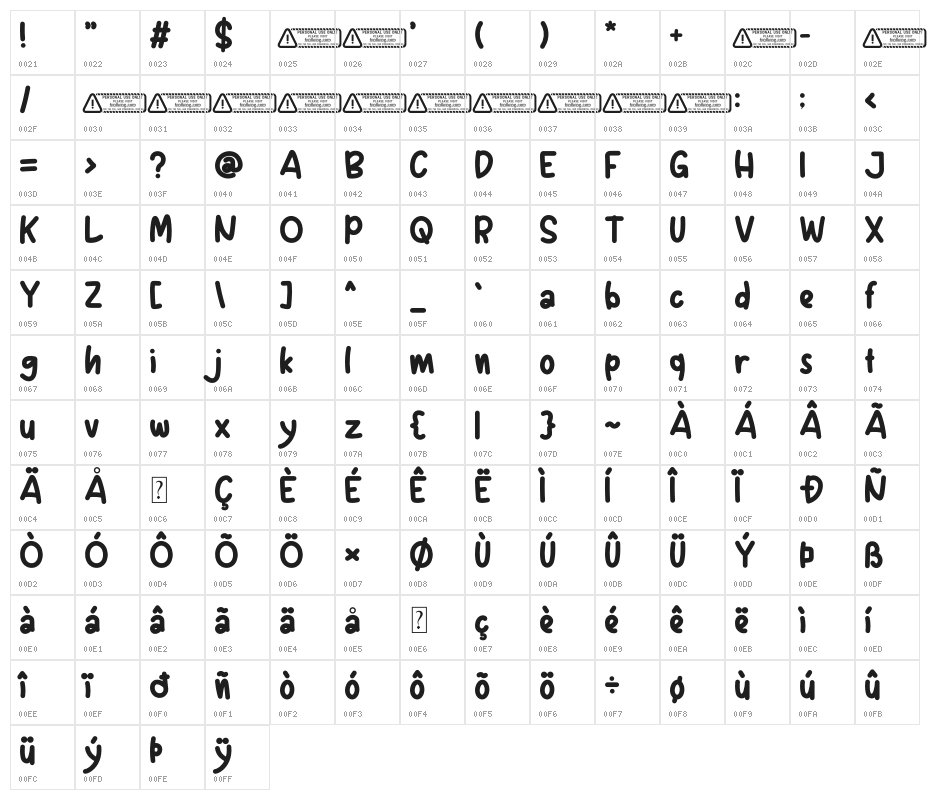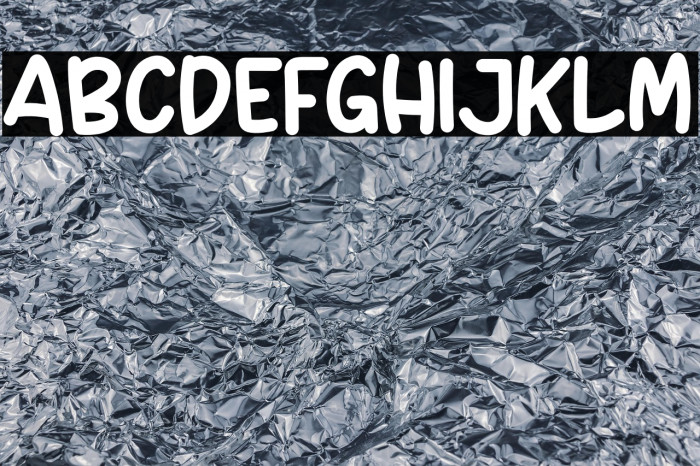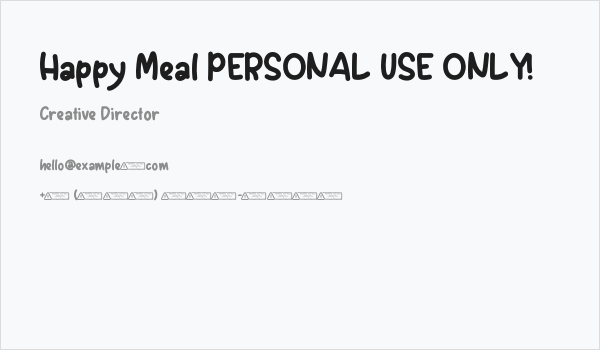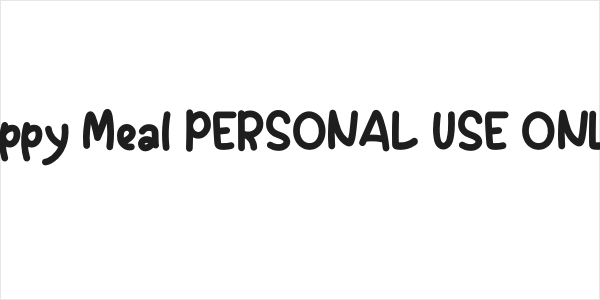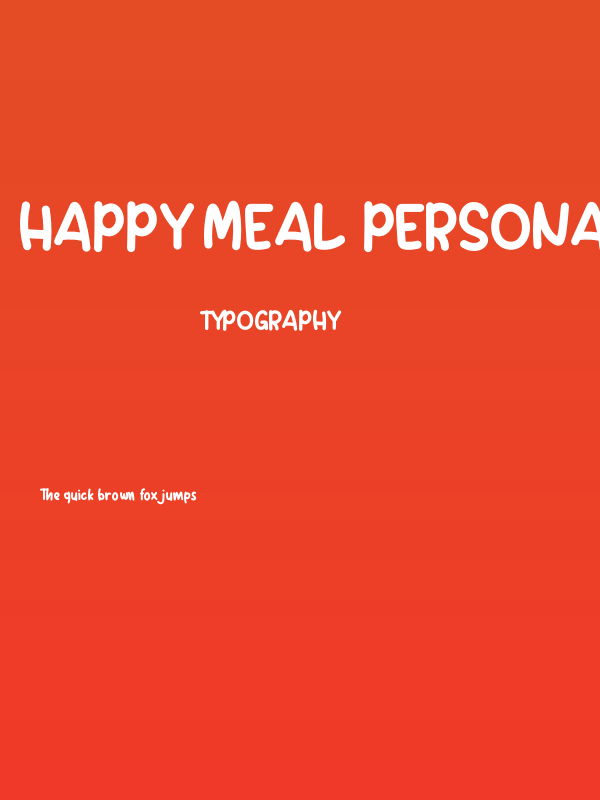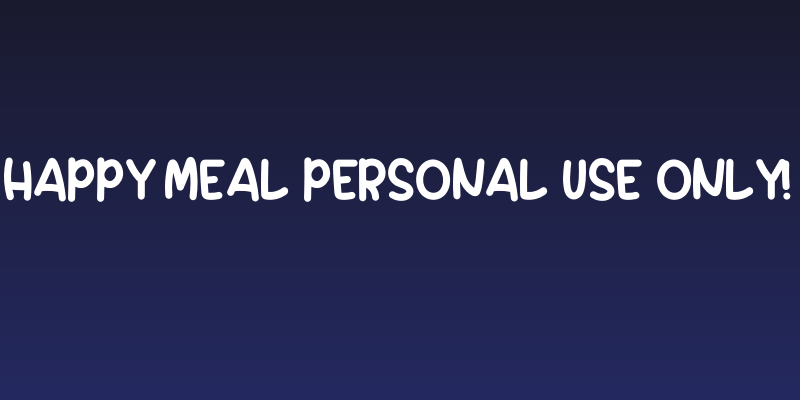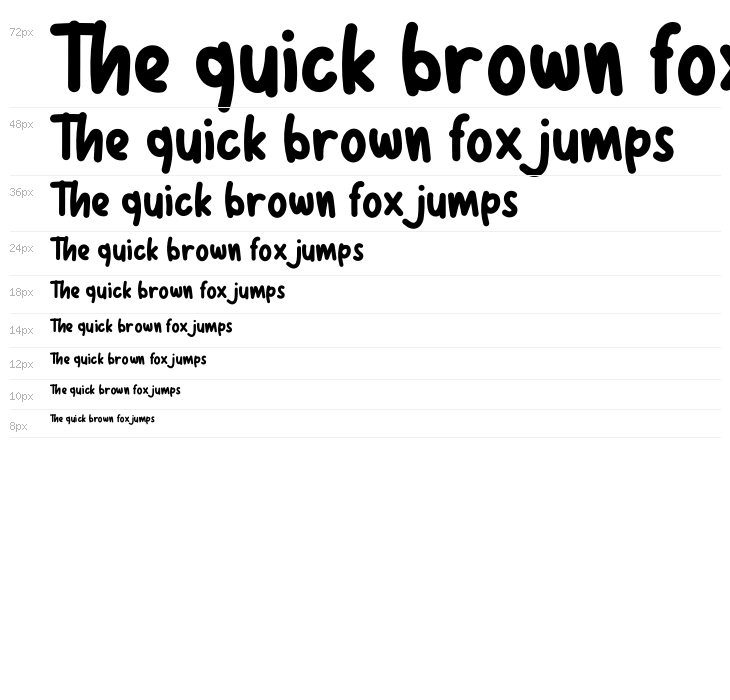
Happy Meal PERSONAL USE ONLY! Font
Happy Meal PERSONAL USE ONLY! Description
This playful and bold font features rounded, thick strokes that give it a friendly and approachable appearance. The characters are slightly irregular, adding a whimsical touch that makes it stand out. The uppercase and lowercase letters maintain a consistent style, with a slight slant that adds to the casual feel. The numbers and special characters are designed to match the overall playful aesthetic, making it suitable for fun and informal projects. The font's boldness ensures high readability, while its unique style makes it memorable.
| Overall Style | Playful, Casual |
| Proposed Projects | Ideal for children's books, playful branding, party invitations, and casual social media graphics. |